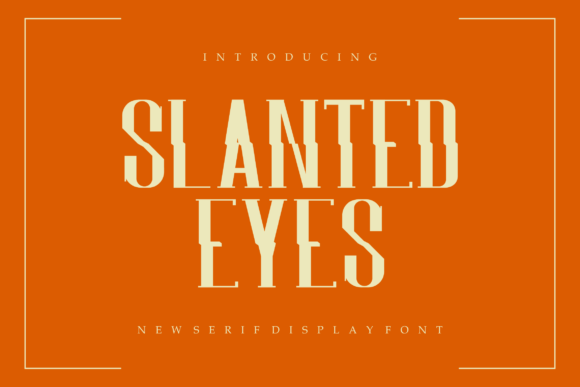
Introducing Slantedeyes Font, a display font brimming with spirit and character, poised to transform your designs into captivating masterpieces. Unleash your creativity and embark on a typographic adventure like no other.
Slantedeyes Font sways with a rhythm all its own, its characters dancing in harmony to create designs that radiate joy and energy. A perfect font for business signs, it commands attention with its bold presence, inviting customers to explore and discover the wonders within your store. Whether you're a seasoned designer or just starting your creative journey, Slantedeyes Font is the perfect companion to bring your ideas to life.
Explore the myriad possibilities that await with Slantedeyes Font. Its playful nature lends itself to a universe of applications, from eye-catching logos that leave a lasting impression to vibrant posters that ignite imaginations. Its natural and unique style effortlessly blends with various themes, making it an indispensable tool for designers seeking to make a statement.
With Slantedeyes Font as your creative ally, the ordinary becomes extraordinary. Elevate your projects to new heights, captivating audiences with the font's inherent charm. Its versatility knows no bounds, adapting seamlessly to a multitude of contexts, ensuring your designs stand out from the crowd.